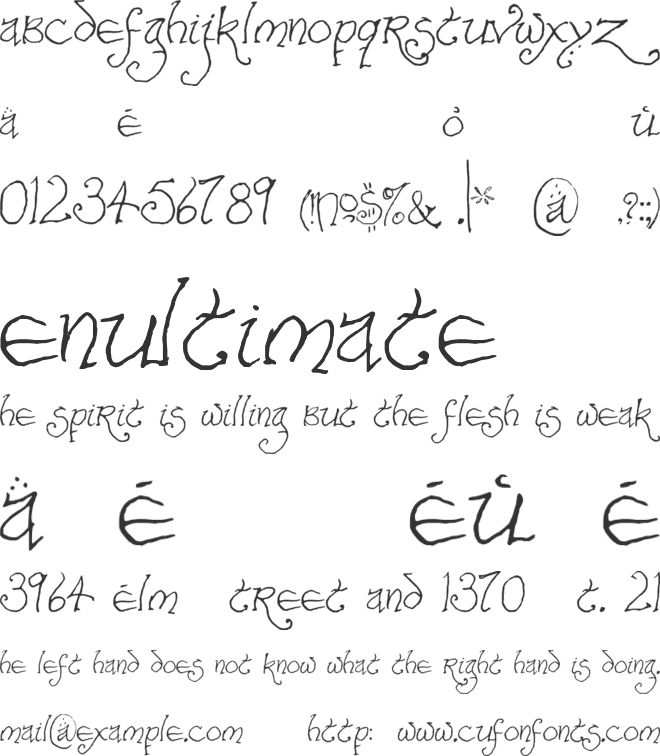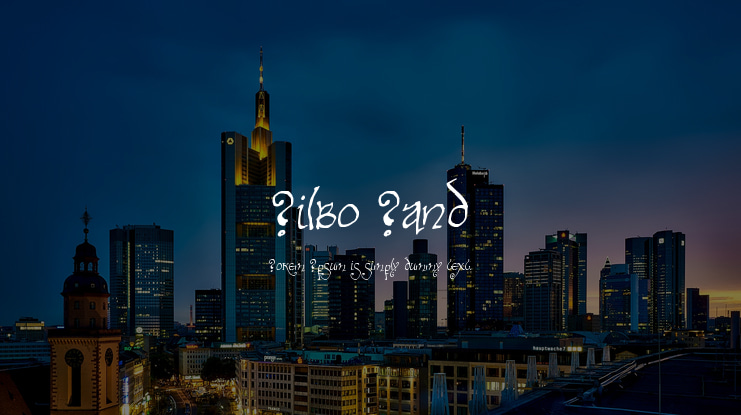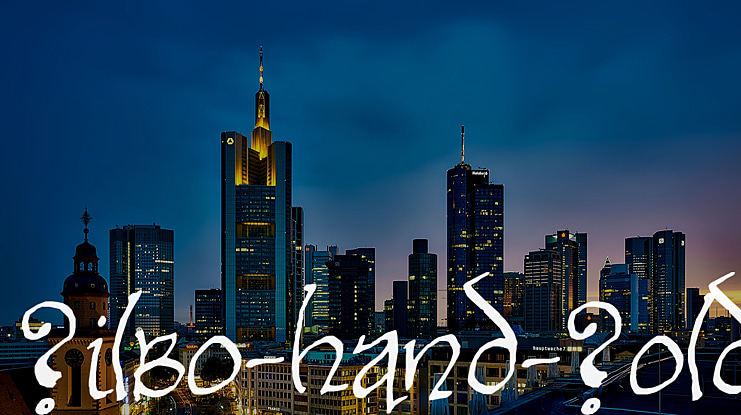
Bilbo Hand Font Family
This font was created after studying still frames of Bilbo's Red Book in the movie. The correct dots are there - you just need to capital the vowels.